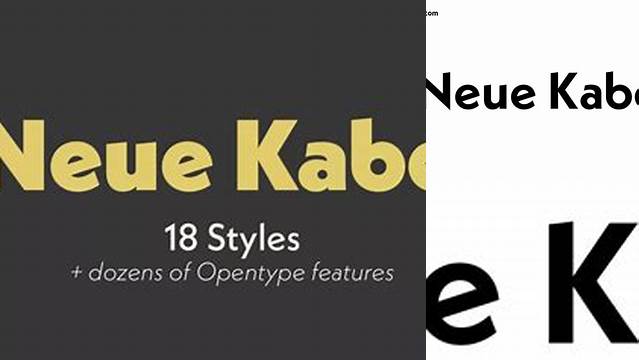
Hey guys! Are you looking for the perfect font to make your designs pop? Look no further! Today, we're diving deep into the world of Neue Kabel Bold font, a sleek and modern typeface that can seriously elevate your projects. We'll explore everything from its history and characteristics to where you can snag it for free and how to best use it. Get ready to unleash your creativity!
What is Neue Kabel Bold Font?
Neue Kabel Bold is a geometric sans-serif typeface that exudes a sense of modernity and sophistication. Its clean lines and bold weight make it highly legible and impactful, perfect for headlines, branding, and various design applications. This font has a distinct personality that can add a touch of elegance and professionalism to your work, guys.
History of Neue Kabel Font
The history of Neue Kabel Bold Font is intertwined with the legacy of geometric sans-serif typefaces. While not directly related to the original Kabel font designed by Rudolf Koch in the 1920s, Neue Kabel draws inspiration from the principles of geometric design. The "Neue" prefix often indicates a modern revival or interpretation of a classic typeface, updating it for contemporary use. This updated version typically retains the core characteristics of the original while incorporating refinements to enhance legibility and visual appeal. The evolution of Neue Kabel Bold reflects the ongoing popularity and adaptability of geometric sans-serif fonts in the design world. Designers often turn to geometric typefaces for their clean, modern look, making Neue Kabel Bold a relevant and stylish choice for various design applications.
Characteristics of Neue Kabel Bold
The defining characteristics of Neue Kabel Bold center around its geometric construction and strong visual presence. The font features clean, precise lines and a consistent stroke weight, contributing to its overall legibility and modern aesthetic. Its geometric forms are evident in the simplified shapes of the letters, creating a balanced and harmonious appearance. The bold weight adds emphasis and impact, making it suitable for headlines, titles, and branding materials. Neue Kabel Bold also boasts excellent readability in both print and digital formats, ensuring that it can be used effectively across various media. Its versatility makes it a popular choice for designers seeking a typeface that is both stylish and functional, capable of conveying a sense of clarity and sophistication in any design project.
Why Choose Neue Kabel Bold Font?
So, why should you choose Neue Kabel Bold Font? Well, there are several compelling reasons! Firstly, its clean and modern aesthetic makes it incredibly versatile for various design projects. Whether you're working on a website, a logo, or a print advertisement, this font can deliver a professional and polished look. Secondly, its bold weight ensures excellent readability, even at smaller sizes. This is crucial for ensuring that your message is clear and easily digestible. Finally, Neue Kabel Bold has a distinct personality that can help your designs stand out from the crowd. It's a font that commands attention without being overly flashy, making it a perfect choice for designers who want to make a statement with their typography.
Using Neue Kabel Bold Font in Graphic Design
When it comes to graphic design, using Neue Kabel Bold Font can add a touch of sophistication and modernity to your projects. Its clean lines and bold weight make it ideal for headlines, titles, and branding materials. Consider using it in posters, brochures, and website headers to grab attention and convey a sense of clarity. Neue Kabel Bold also works well in logos, providing a strong and memorable visual identity. Experiment with different font sizes and spacing to create visual hierarchy and enhance readability. When pairing it with other fonts, opt for complementary typefaces that share a similar geometric structure or contrast it with a more organic font to create visual interest. With its versatility and stylish appeal, Neue Kabel Bold is a valuable asset for any graphic designer's toolkit.
Neue Kabel Bold Font in Web Design
In web design, Neue Kabel Bold Font can significantly enhance the user experience by improving readability and visual appeal. Its clean, geometric design makes it easy to read on screens of all sizes, ensuring that your website content is accessible and engaging. Use Neue Kabel Bold for headlines, navigation menus, and call-to-action buttons to draw attention to key elements on your pages. Its bold weight adds emphasis and helps guide users through your site. When implementing Neue Kabel Bold on your website, ensure that you optimize it for web performance to avoid slow loading times. Consider using web font formats like WOFF or WOFF2, and leverage CSS techniques to control font rendering and spacing. With proper implementation, Neue Kabel Bold can elevate the look and feel of your website, creating a professional and user-friendly online presence.
Combining Neue Kabel Bold with Other Fonts
Combining Neue Kabel Bold with other fonts requires careful consideration to achieve a harmonious and visually appealing design. When pairing typefaces, it's important to consider their contrasting or complementary characteristics. For example, you might pair Neue Kabel Bold with a softer, more rounded sans-serif font to create a balance between modernity and warmth. Alternatively, you could combine it with a classic serif font to add a touch of elegance and sophistication. Experiment with different font pairings and font sizes to create visual hierarchy and guide the reader's eye. Pay attention to the overall tone and style of your design, and choose fonts that align with the message you're trying to convey. By thoughtfully combining Neue Kabel Bold with other fonts, you can create a unique and memorable typographic palette that enhances the overall impact of your design.
Neue Kabel Bold Font for Logos
Using Neue Kabel Bold Font for logos is a fantastic way to create a modern, memorable brand identity. The font's clean lines and geometric shapes lend a sense of professionalism and clarity, while its bold weight ensures high visibility. When designing a logo with Neue Kabel Bold, consider the overall message you want to convey. The font's versatility makes it suitable for a wide range of industries, from technology and finance to fashion and design. Experiment with different letter combinations and arrangements to create a unique and recognizable mark. Pay attention to the spacing between letters and the overall balance of the logo. Consider incorporating additional design elements, such as symbols or icons, to further enhance the logo's visual appeal. Neue Kabel Bold's timeless design ensures that your logo will remain stylish and relevant for years to come.